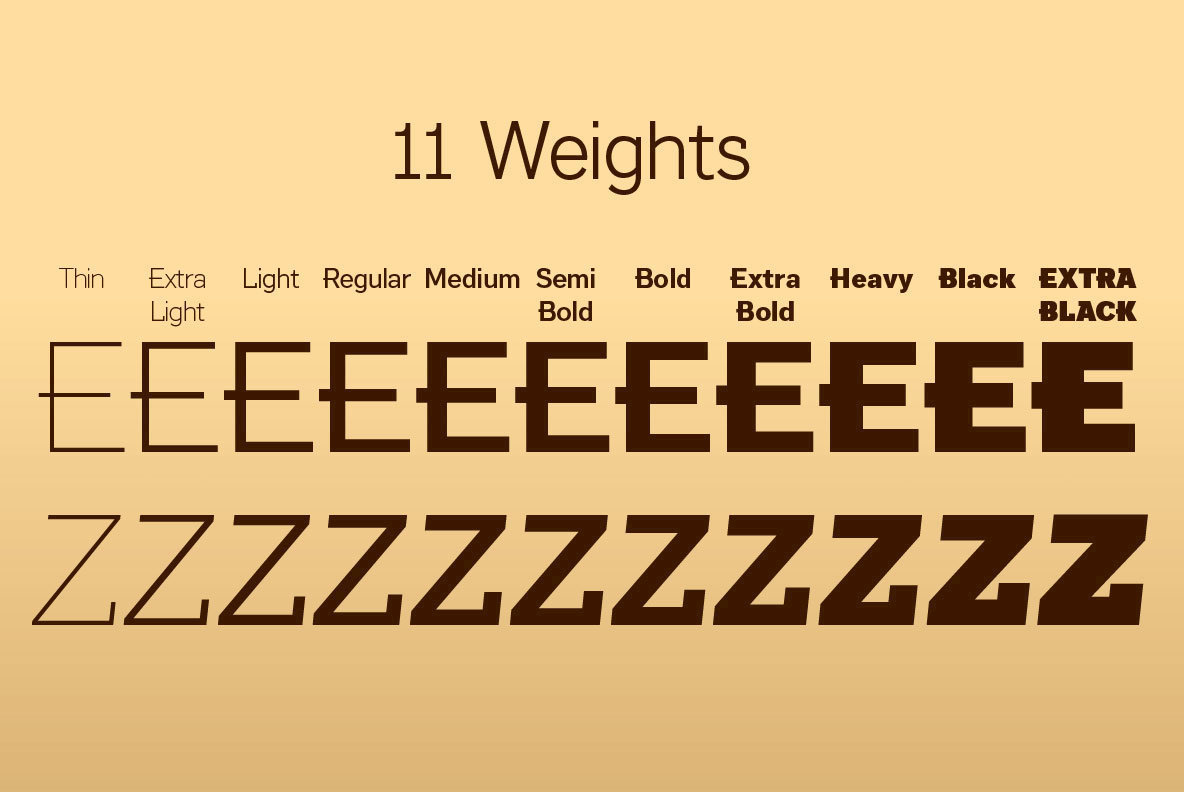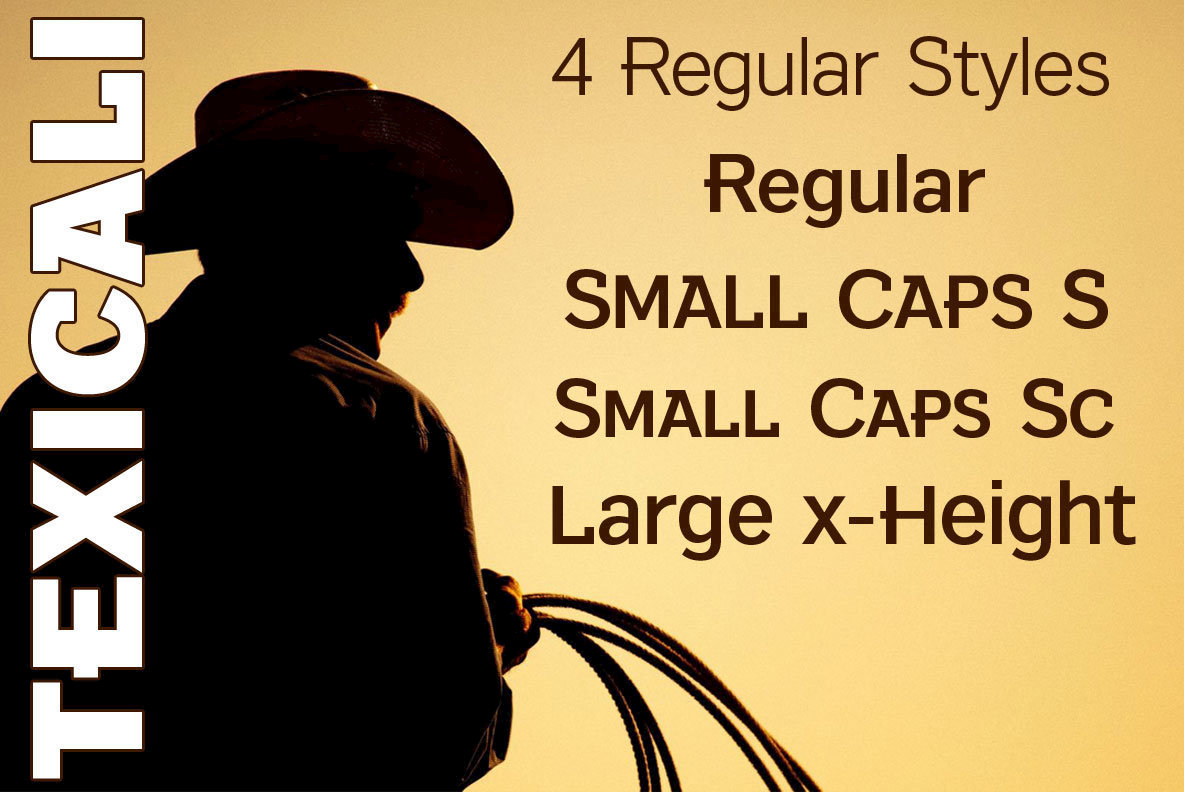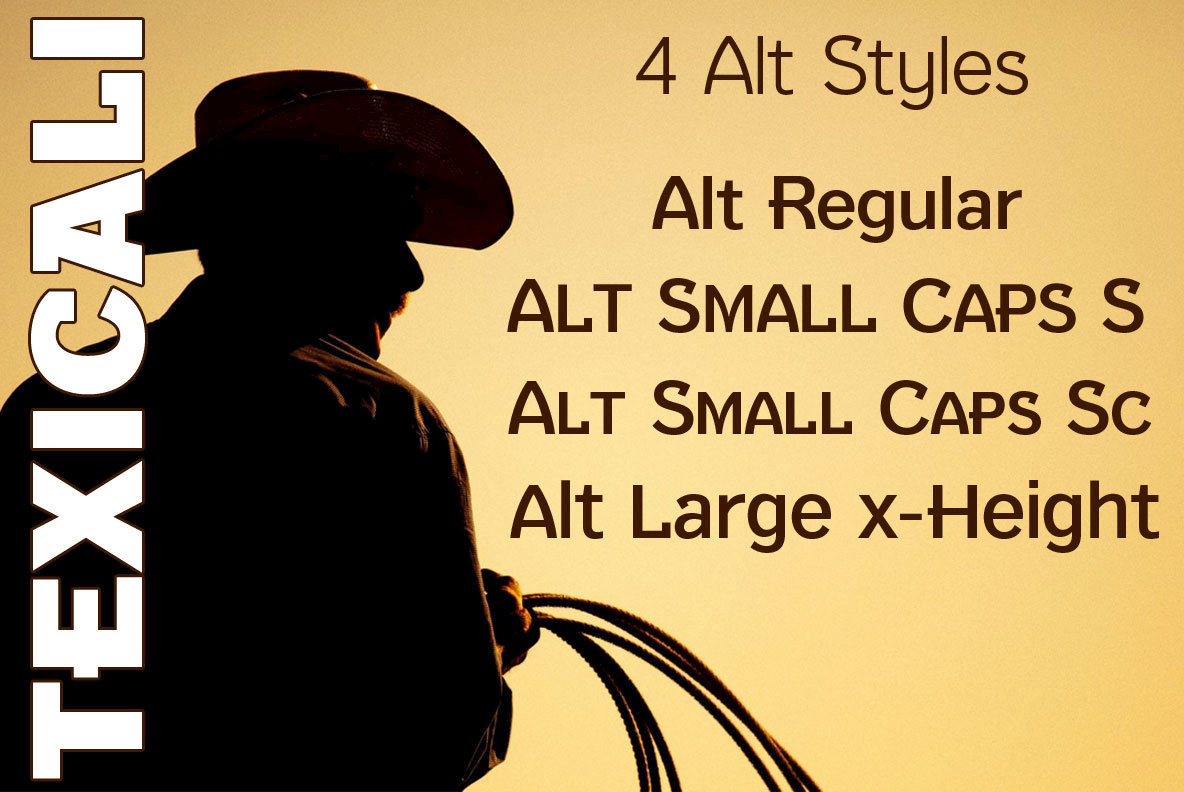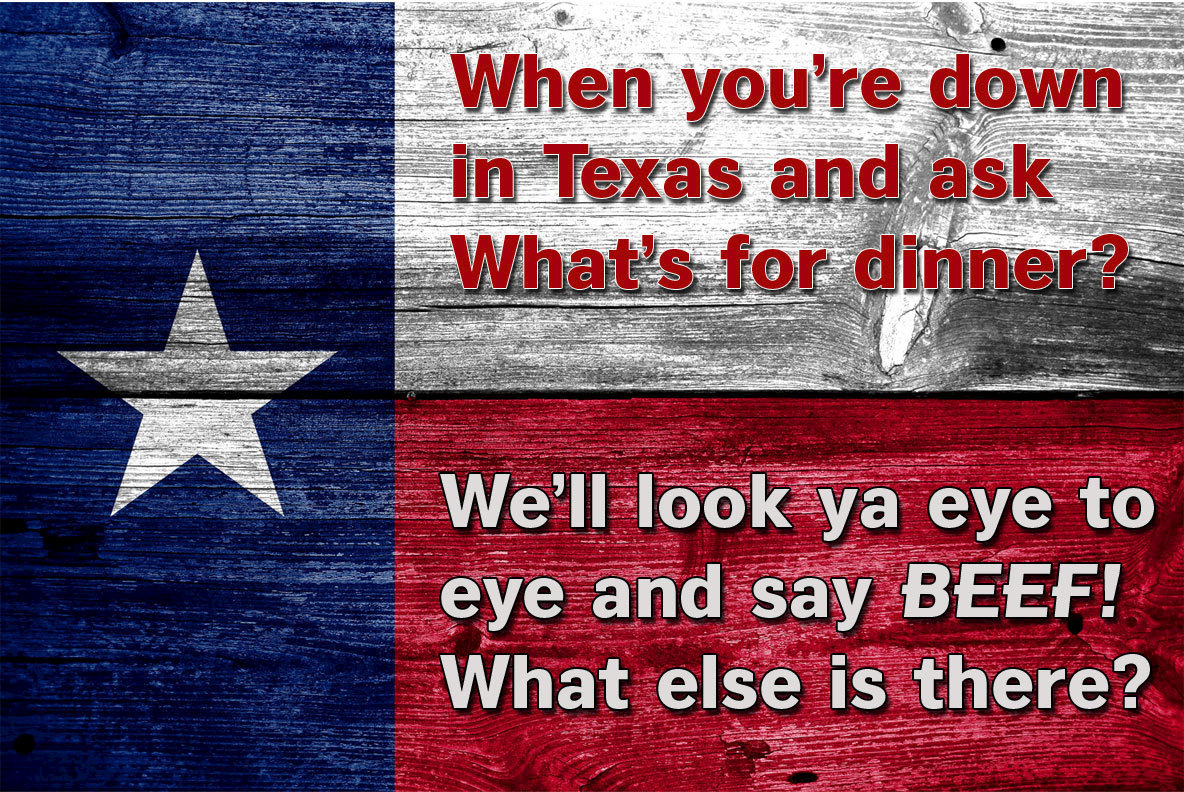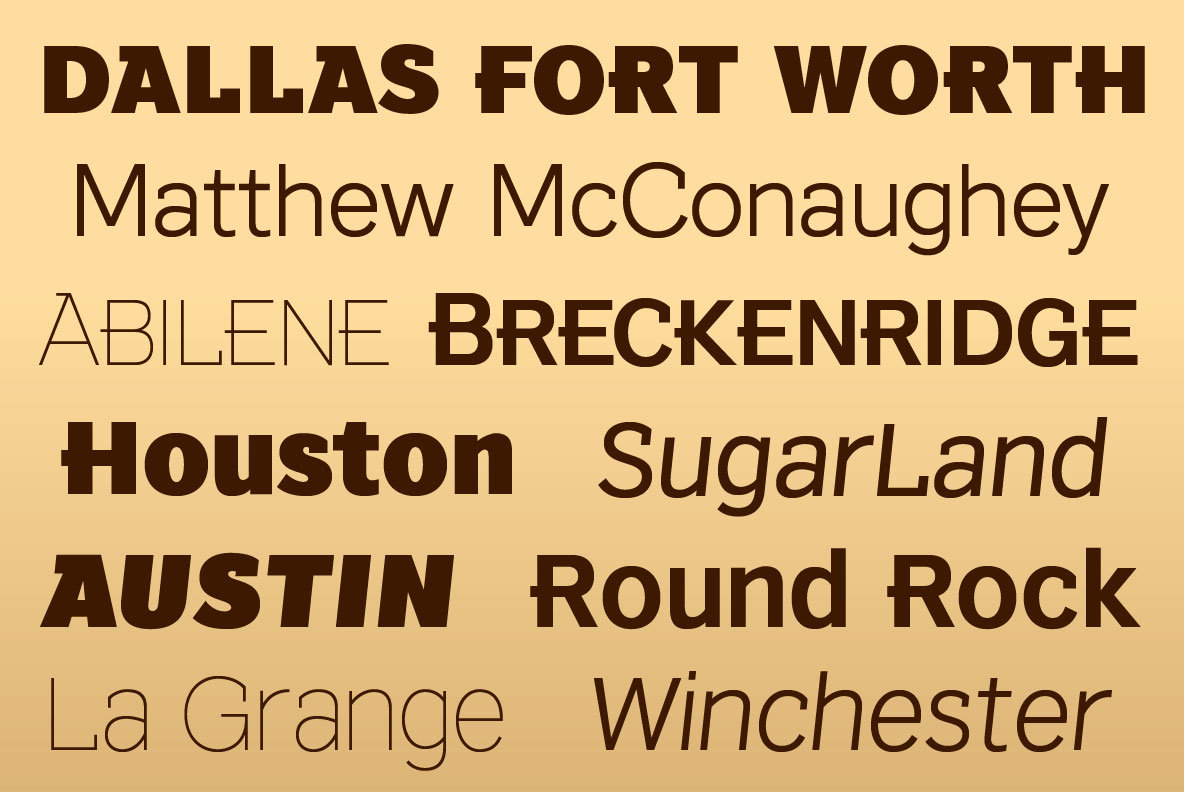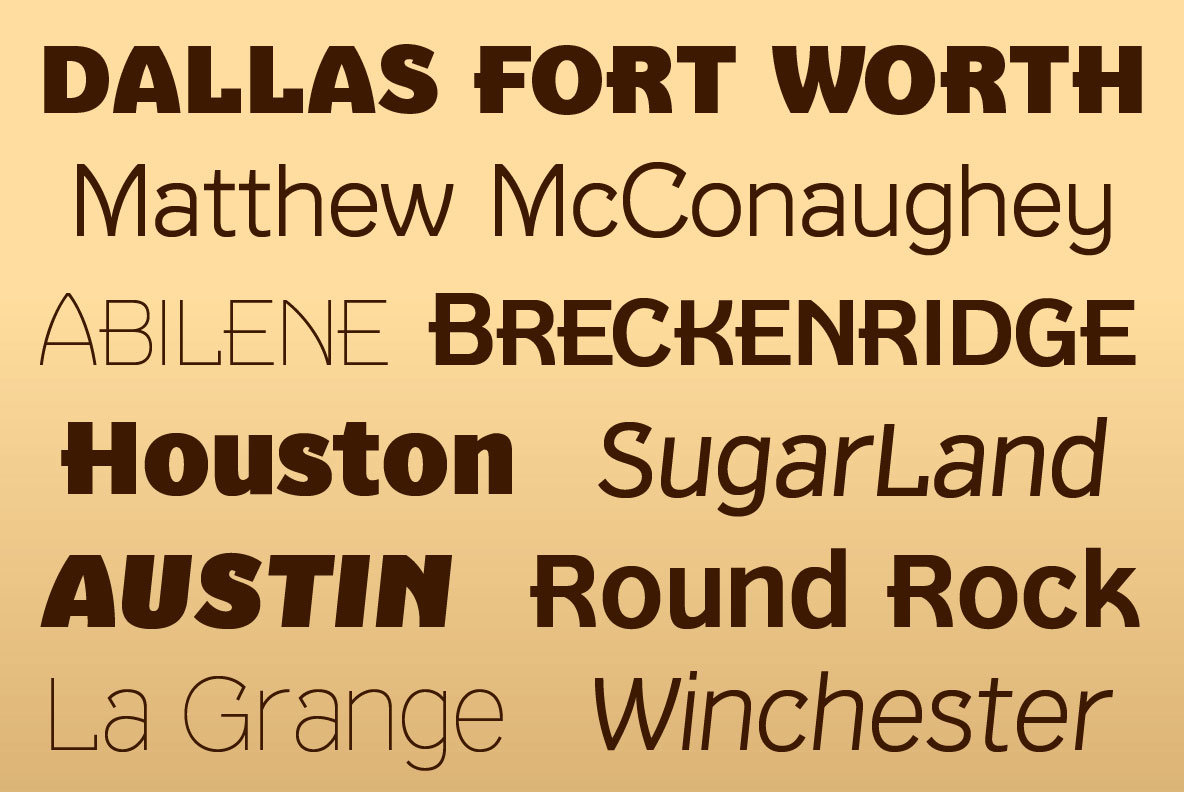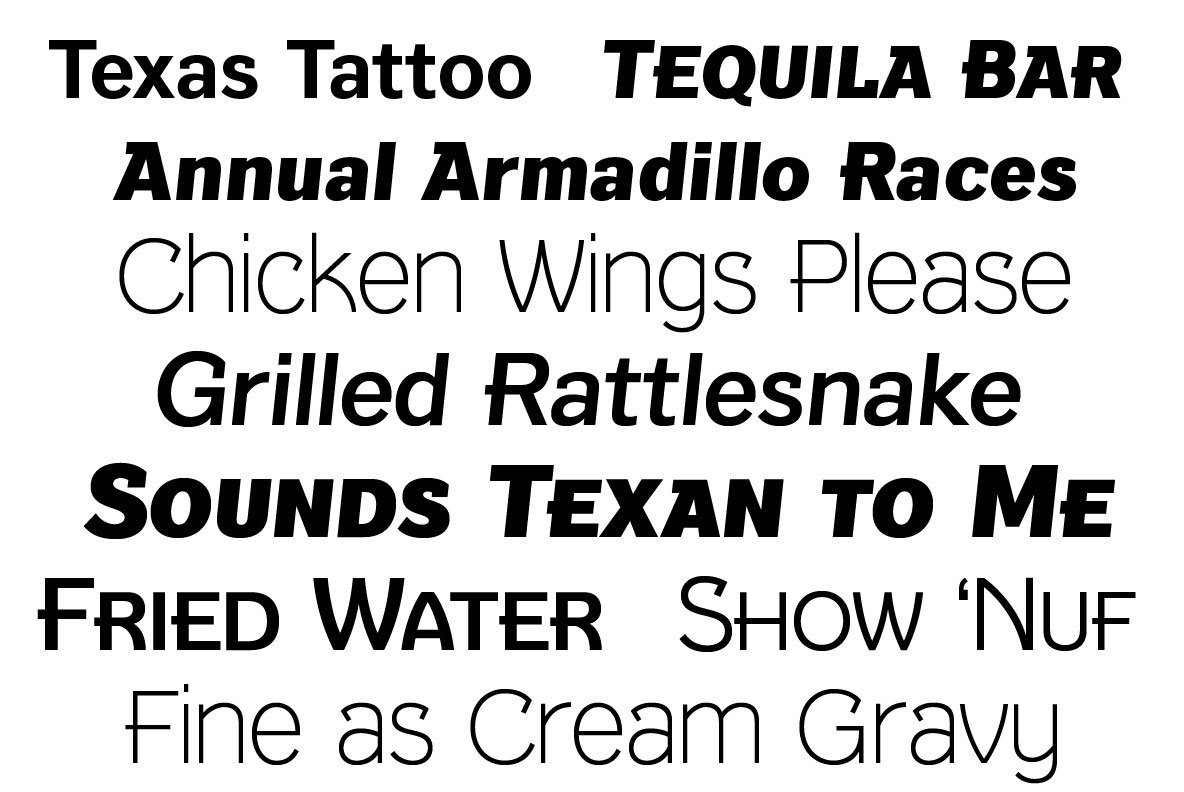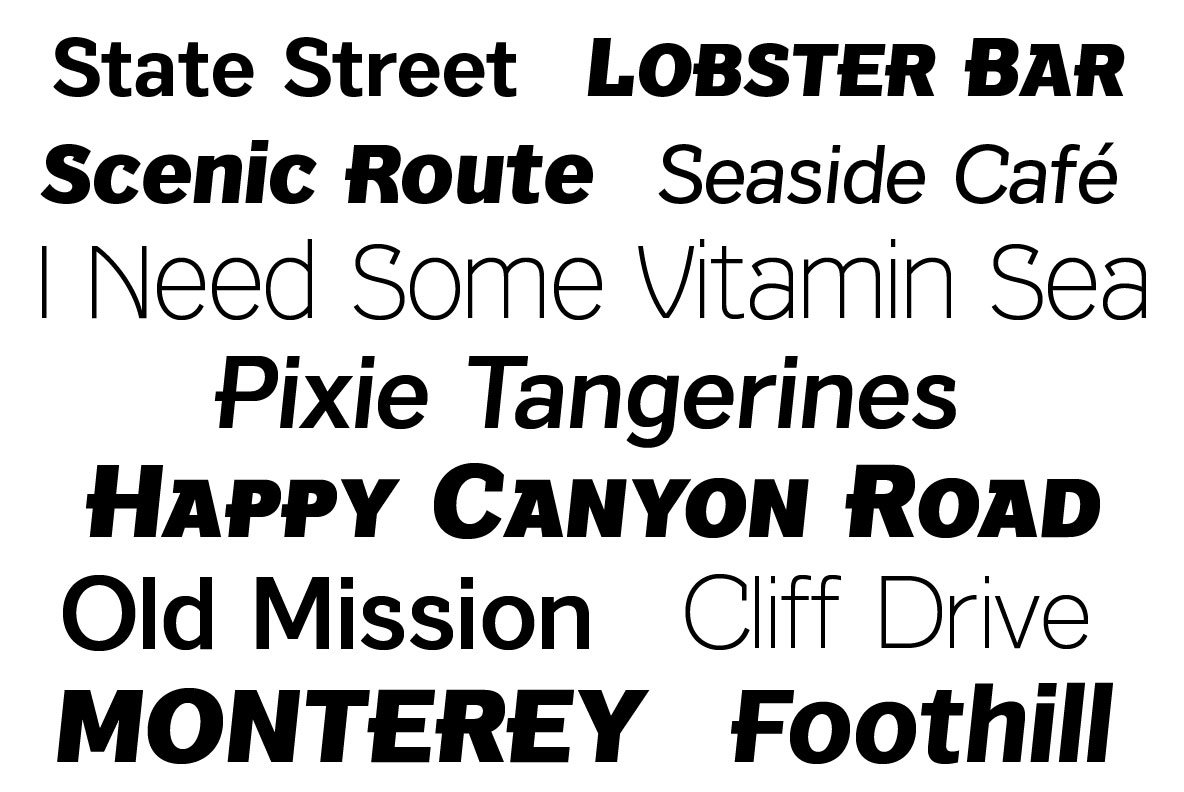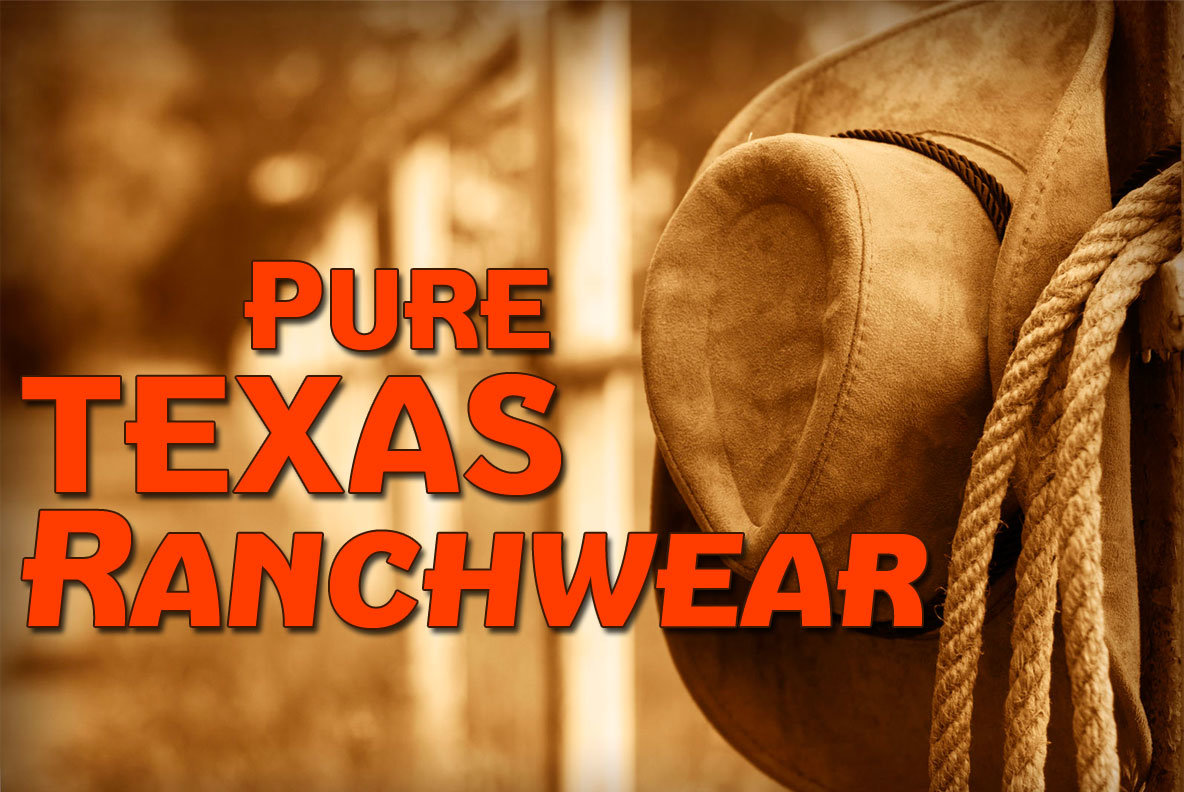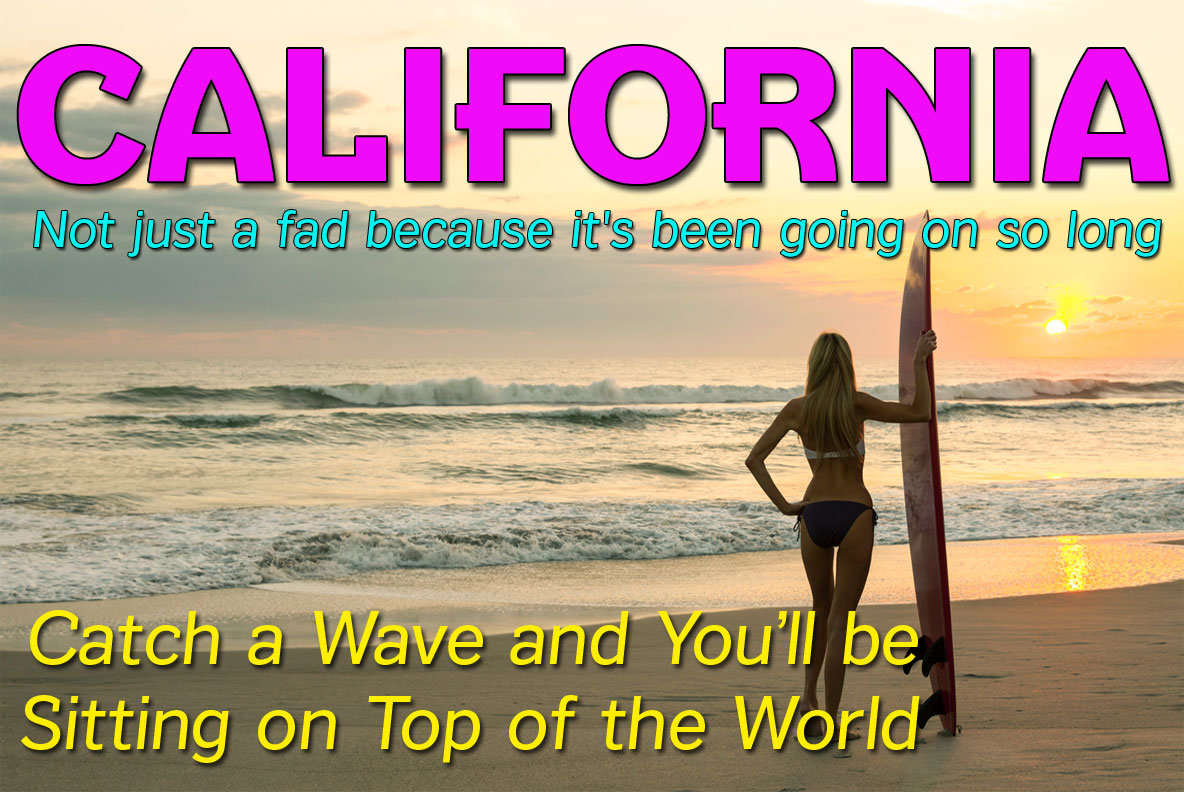
Texicali Font
The X version, with its higher x-height lowercase, is ideal for signage where you want the look of a lowercase, however you want a sign that's readable from the street.
Larger x-heights also come in handy for web use helping to make the text more readable on smaller devices.
Some foundries refer to these fonts as e-text, but we're simply identifying them with a large X.